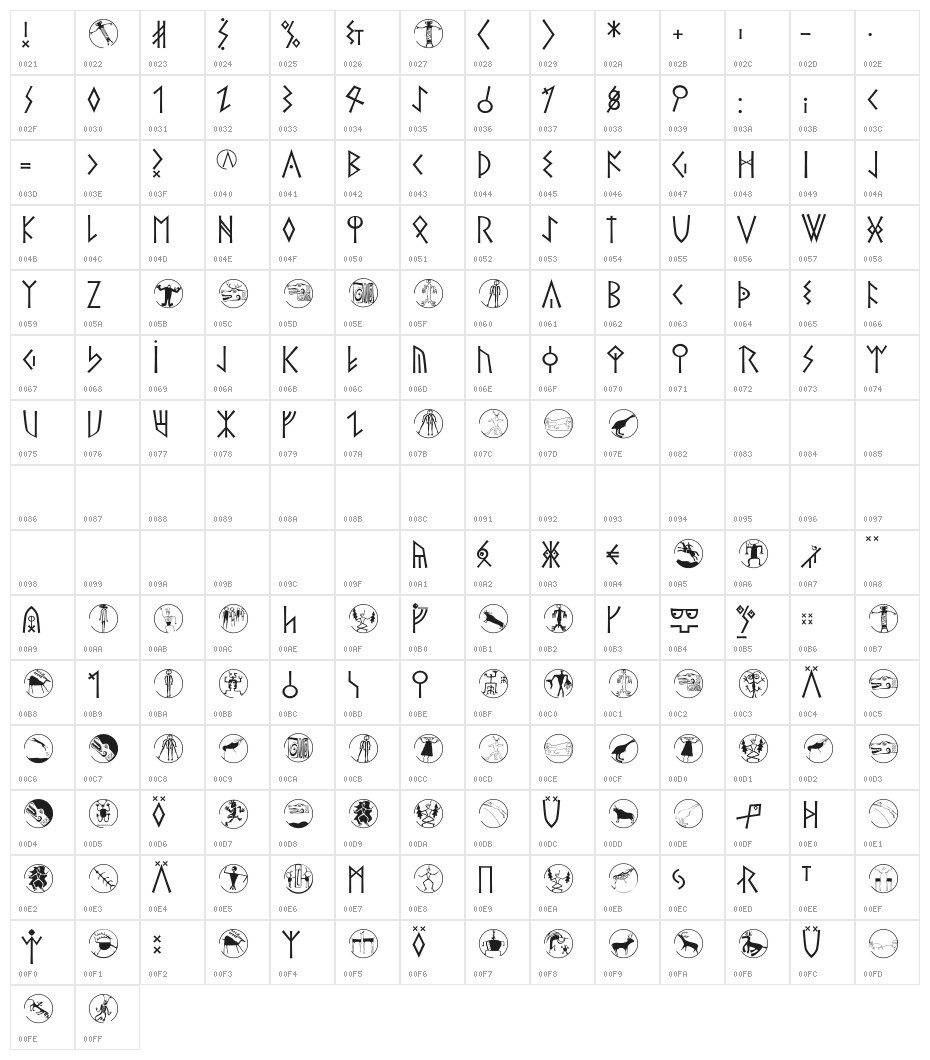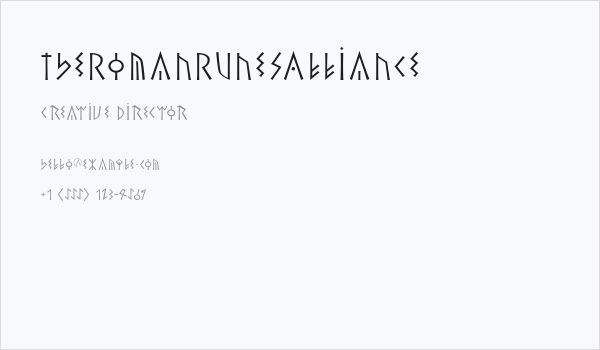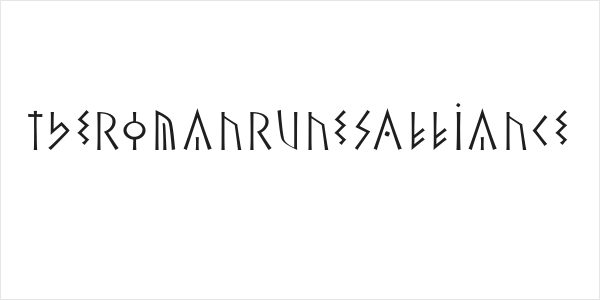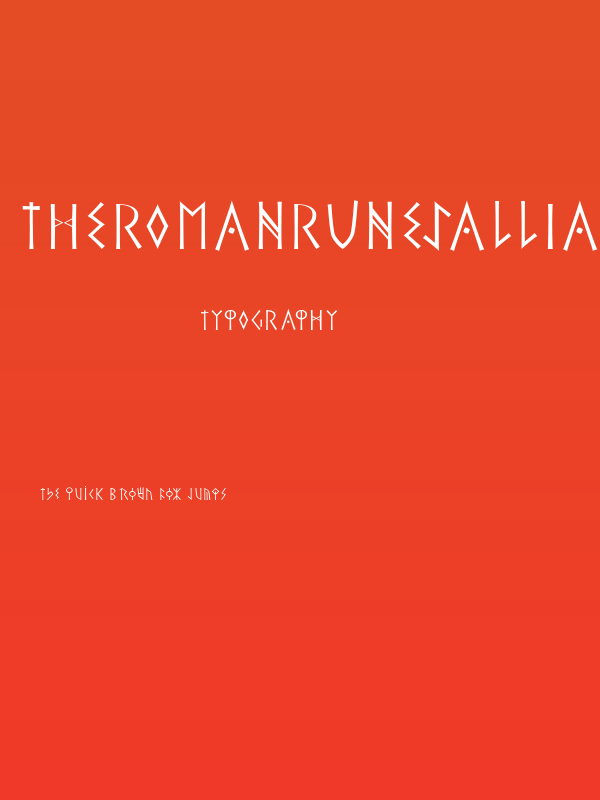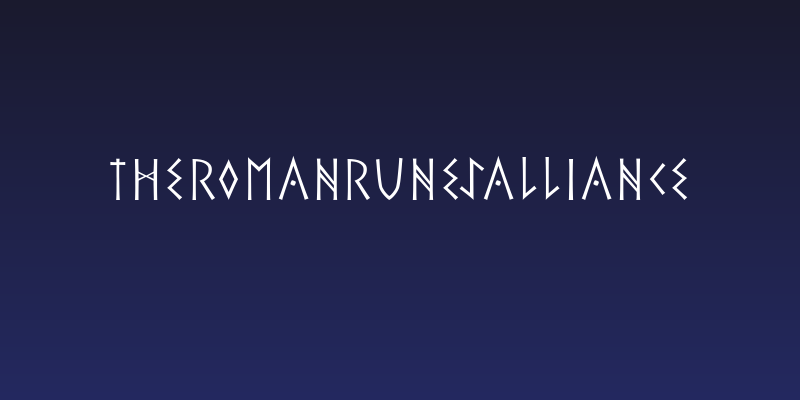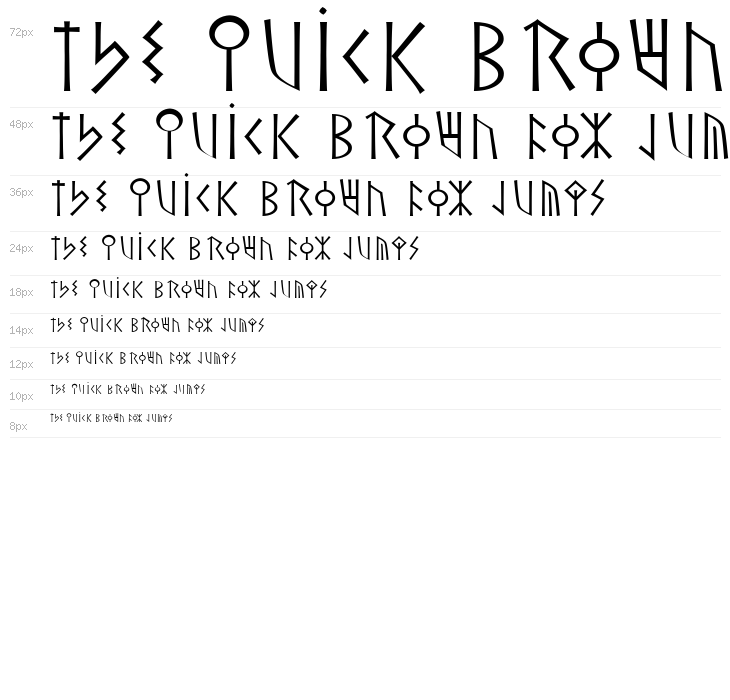
TheRomanRunesAlliance Font
TheRomanRunesAlliance Description
This font features a unique blend of ancient runic and modern geometric styles, creating a distinct and eye-catching appearance. The characters are composed of sharp angles and straight lines, reminiscent of ancient inscriptions. Each letter is crafted with a sense of mystery and historical depth, making it ideal for projects that require a touch of the archaic or mystical. The numerals and special characters maintain the same stylistic approach, ensuring consistency across all text elements. This font's design is both decorative and functional, suitable for creative and thematic applications.